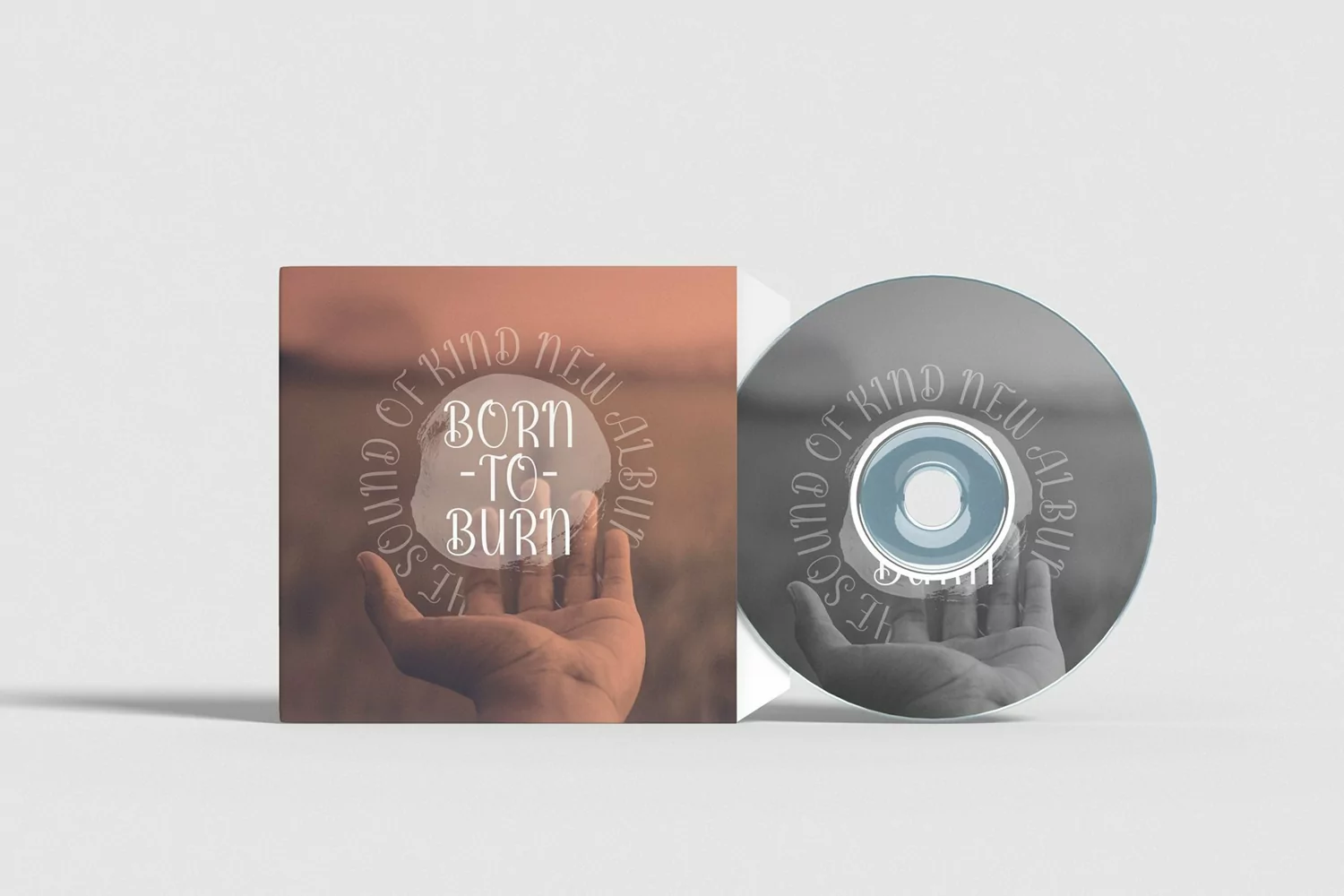
Pamolea is a new unique display typeface. Perfect for display, poster, quotes, film, craft needs, book cover, business card, packaging, merchandise, branding, logo, logotype, header, title, and many more.